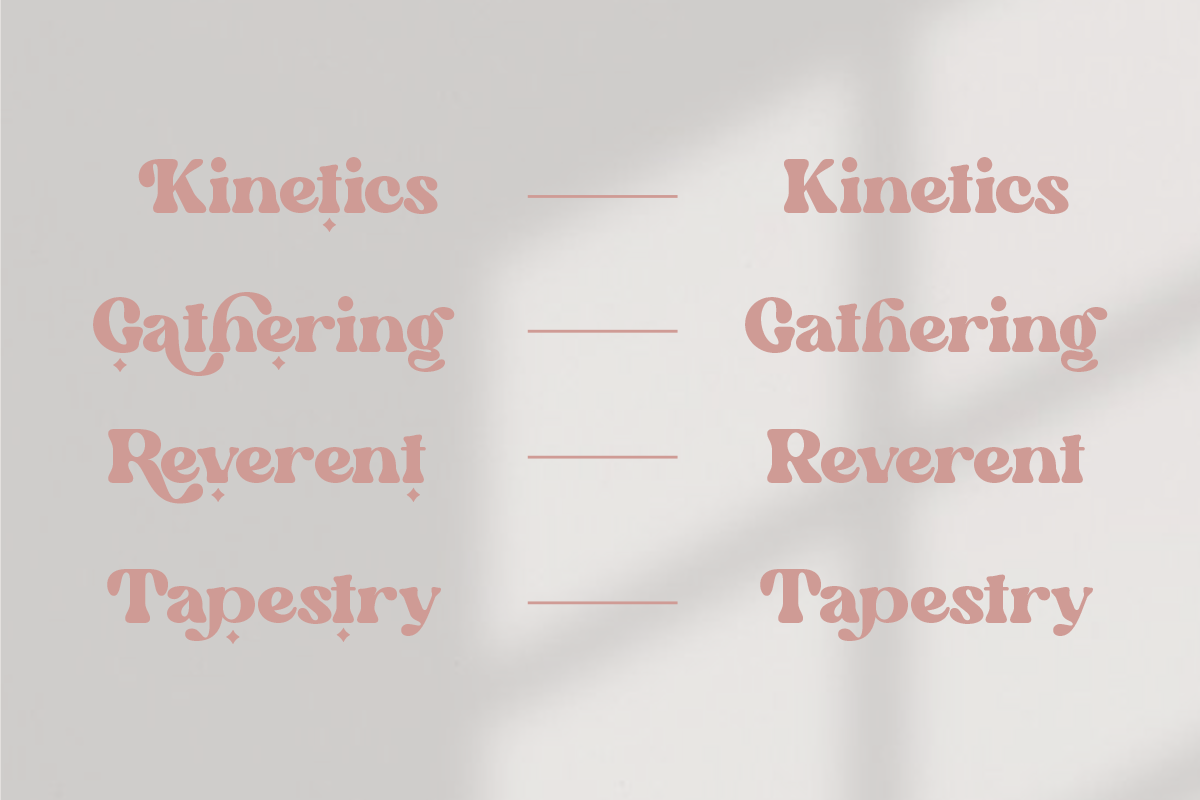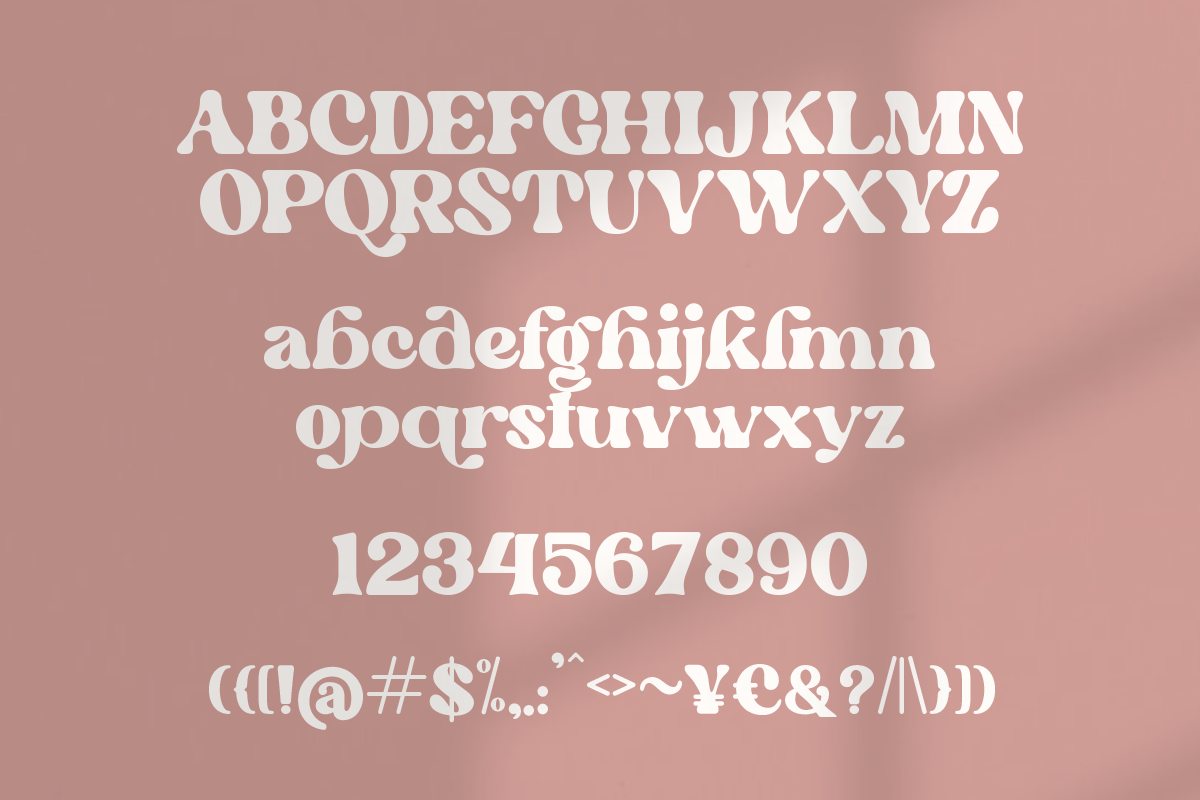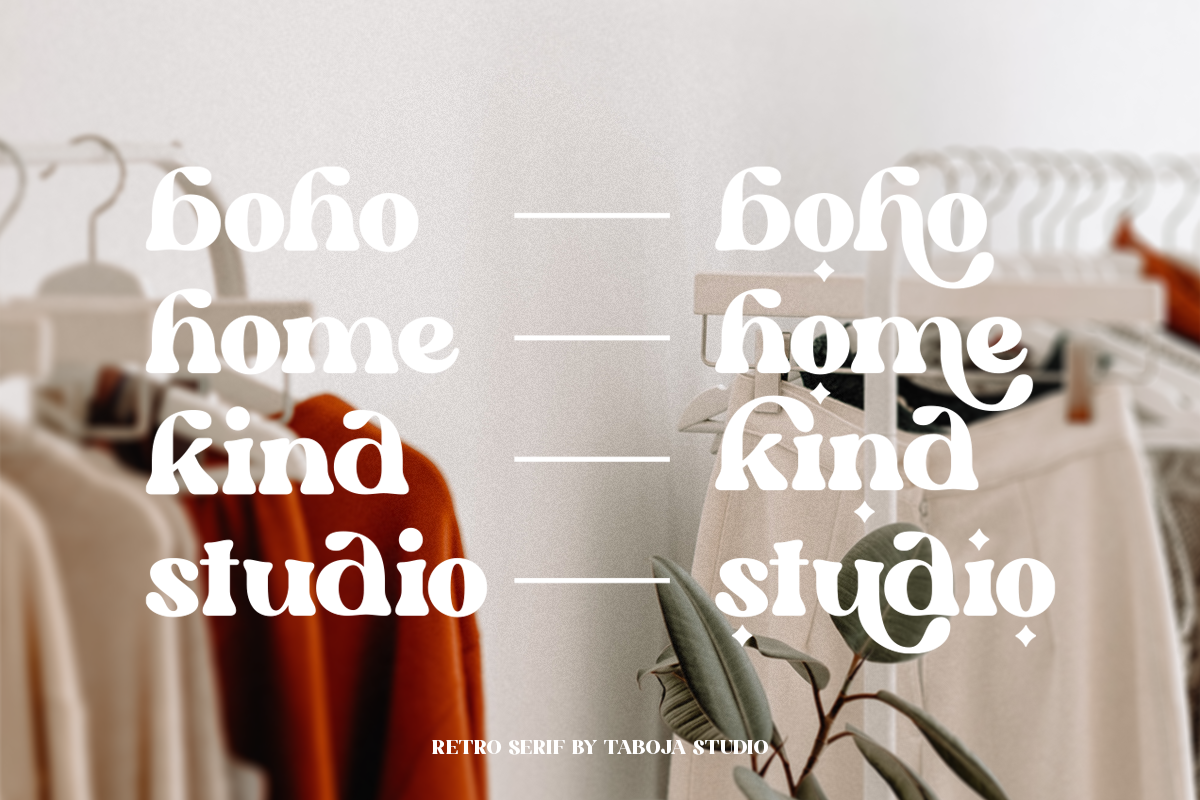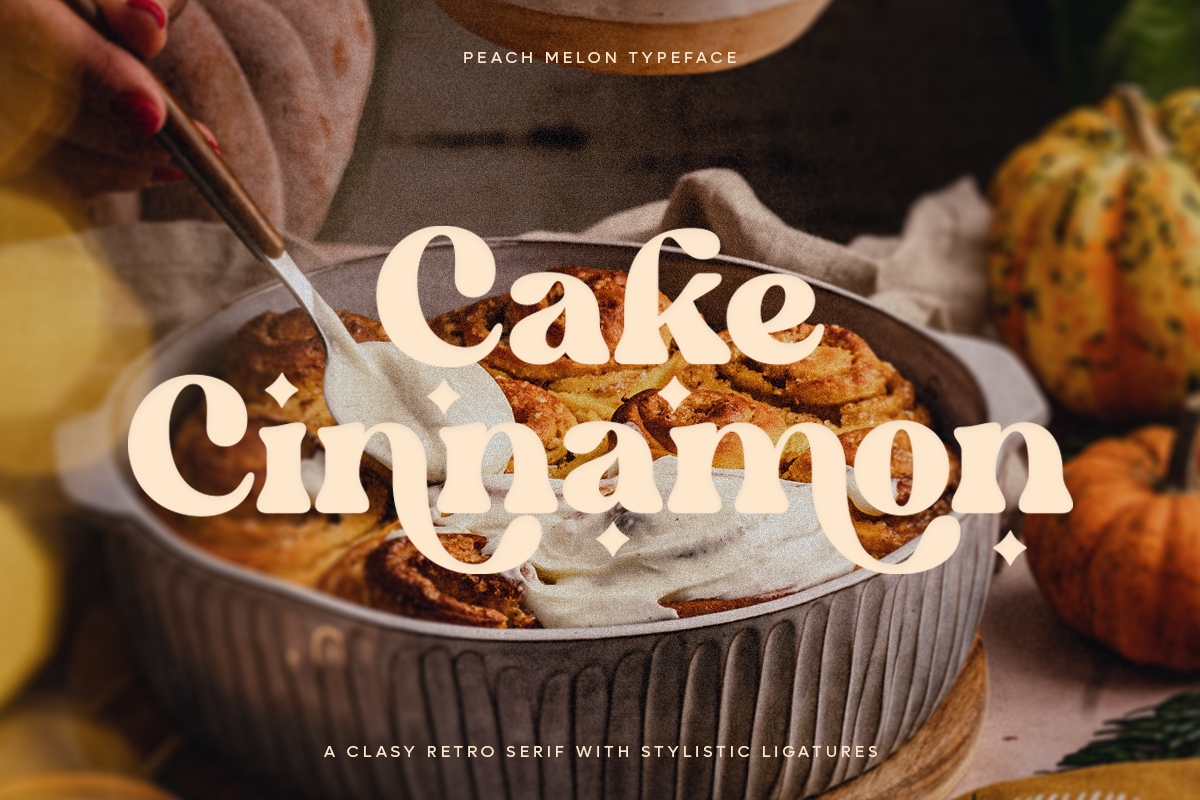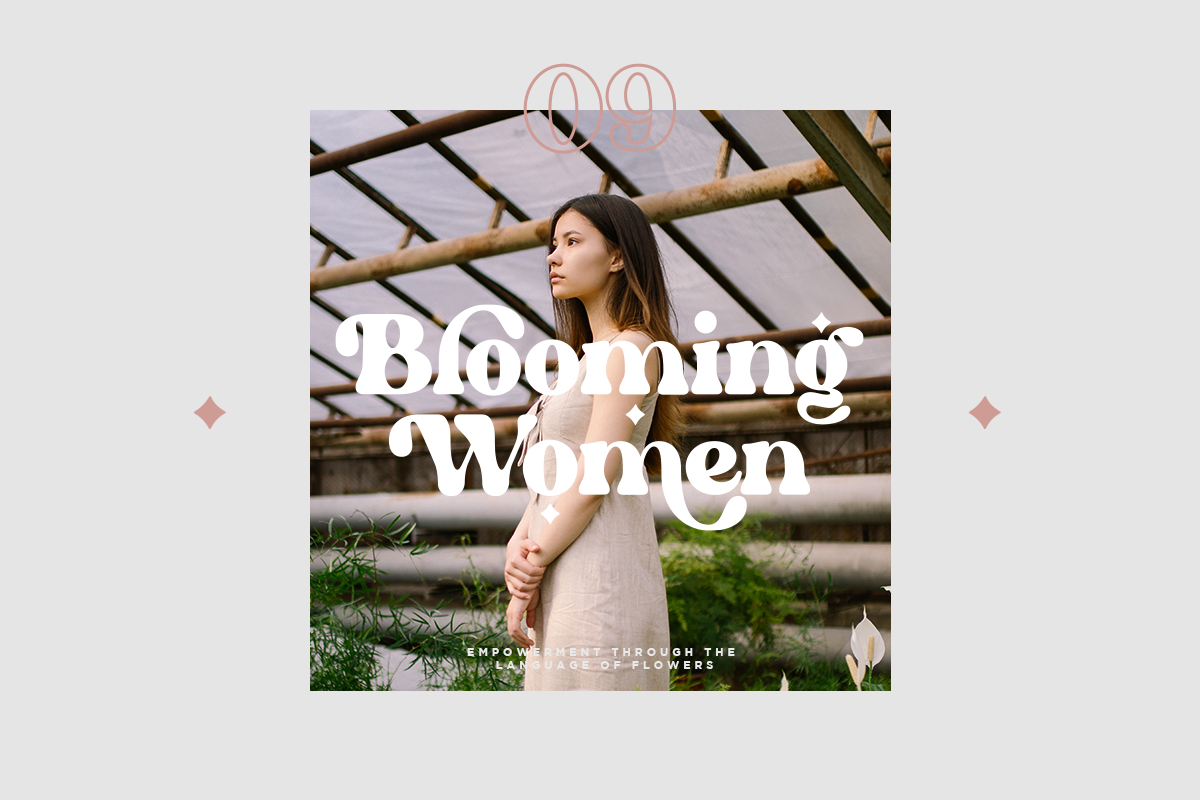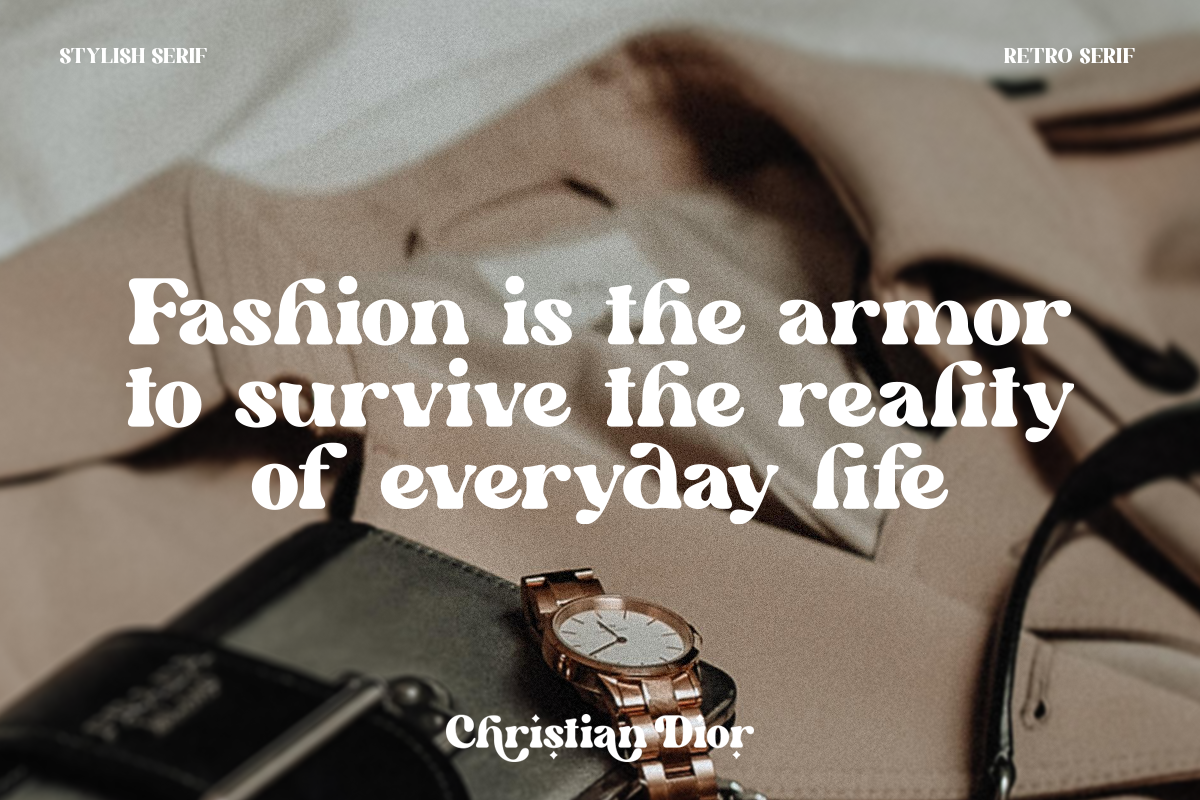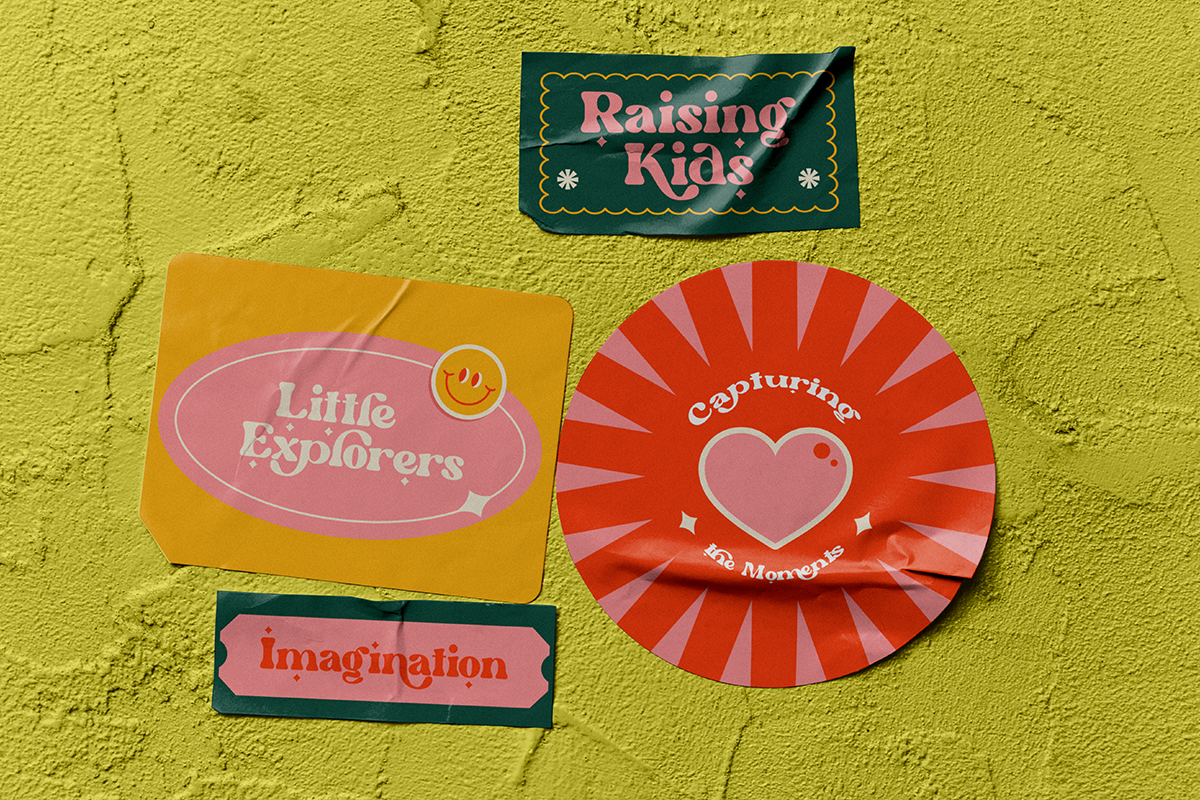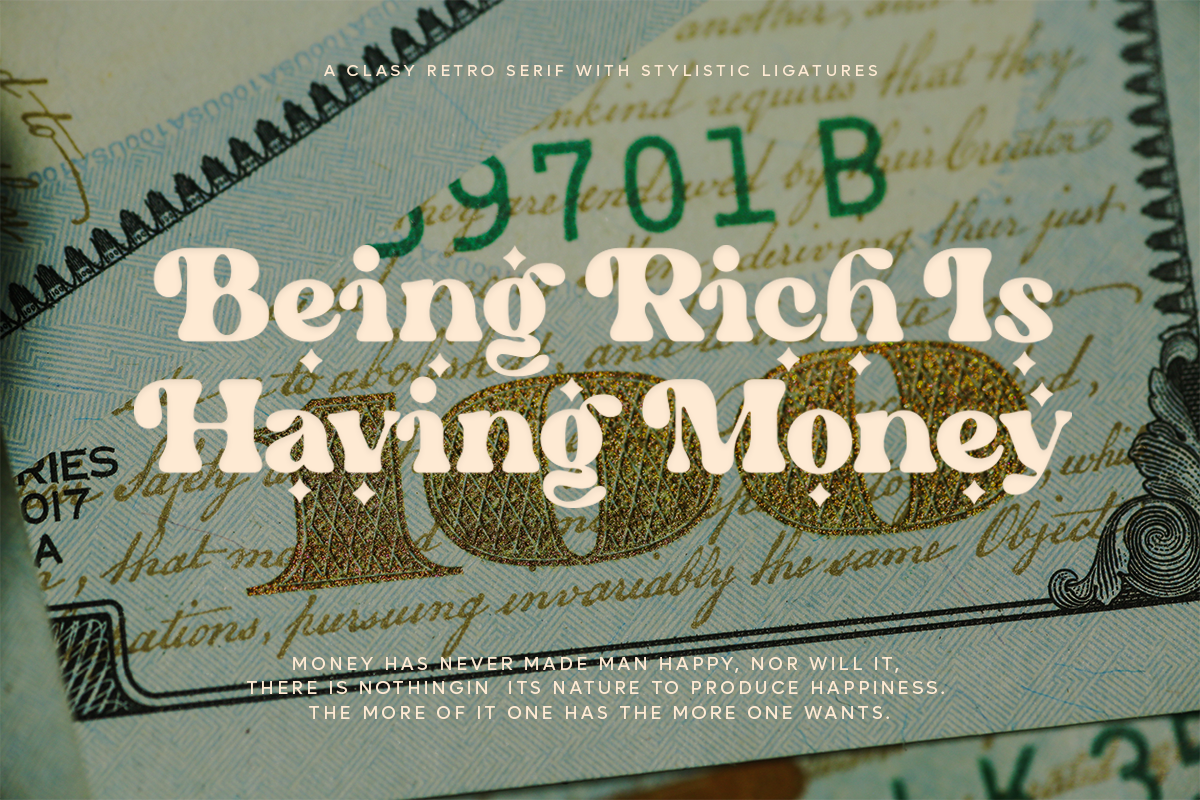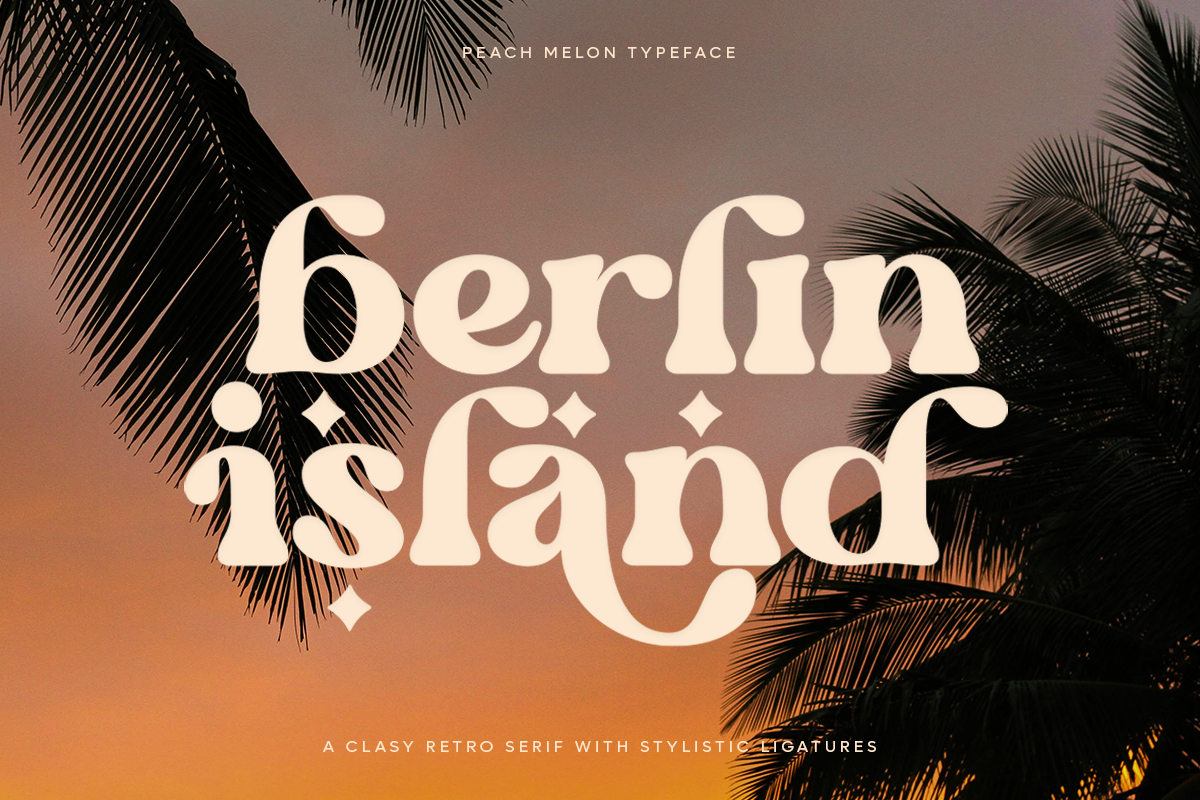
Peach Melon | Retro Serif
Introducing Peach Melon a versatile and stylish typeface designed to elevate all your design needs. This font seamlessly blends the timeless sophistication of serif with a touch of grooviness, creating a unique and engaging visual experience.
Peach Melon font will be great for any branding project. Lot of alternates and ligatures will help you to create unique and original logo design or website header! Trendy, groovy, crazy & retro style serif font for your fancy projects.
Peach Melon Features:
- Uppercase And Lowercase
- Alternates And Ligatures